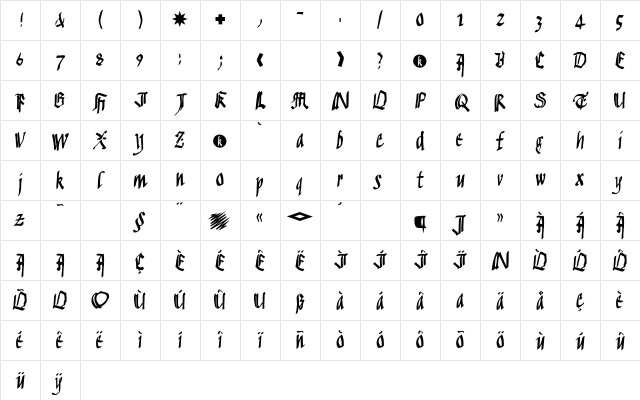
AIFraktScript Regular Free Font
AIFraktScript Regular
Design Context for AIFraktScript
AIFraktScript flows with the natural rhythm of handwritten lettering, making it ideal for designs that call for warmth and personal expression.
Font Pairing: Combine AIFraktScript with a simple geometric sans for maximum contrast - the tension between flowing curves and clean structure is a classic typographic pairing.
Pro Tip: Use AIFraktScript for short runs of text - names, titles, or taglines. Extended body copy in script faces tires the eye quickly.